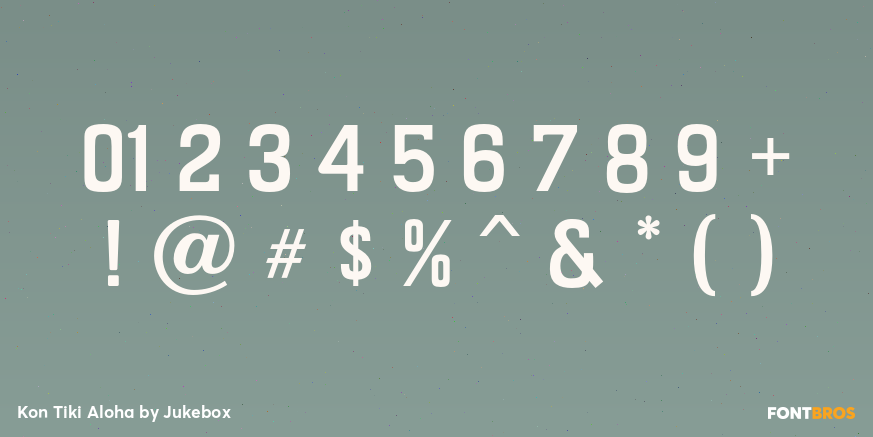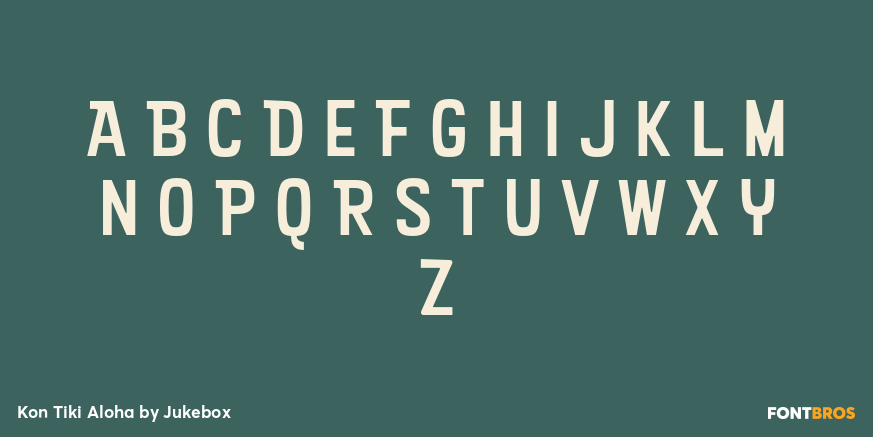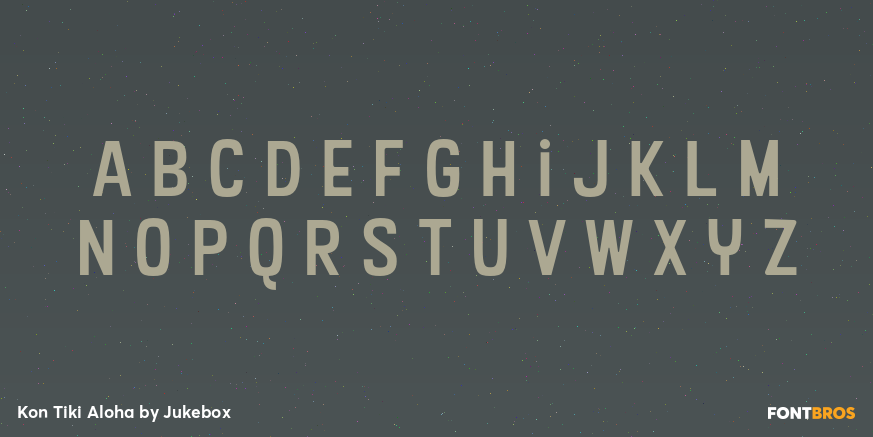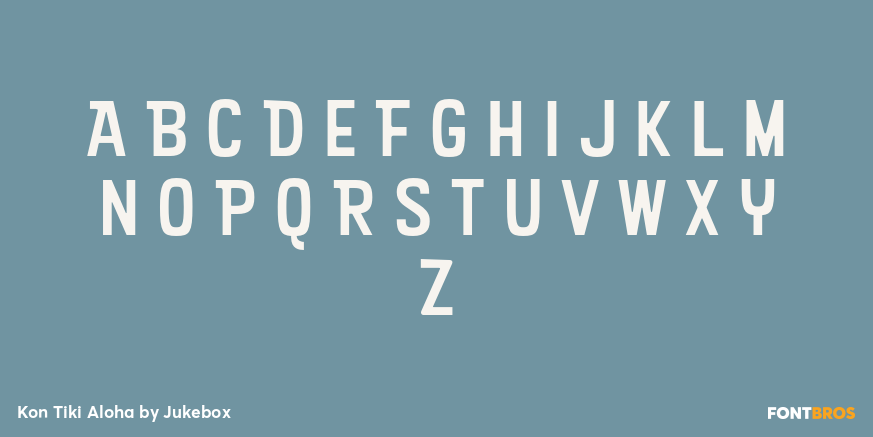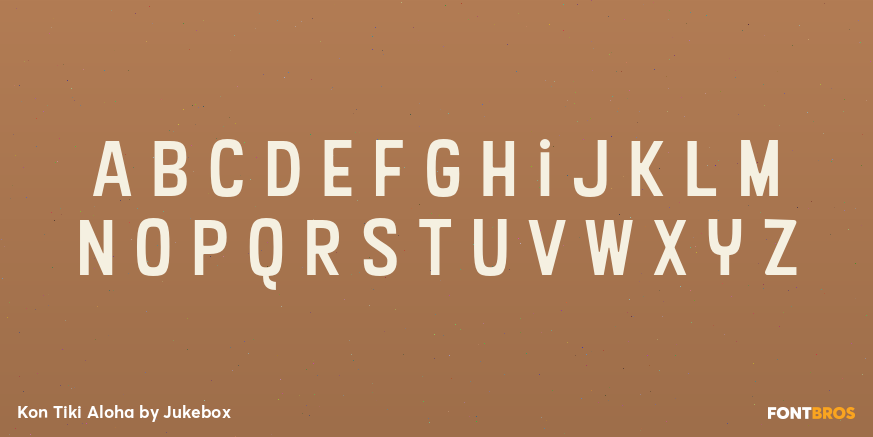
Kon Tiki Aloha
Font Family by Jukebox
Kon Tiki Aloha is one of a series of Kon Tiki fonts created to celebrate the culture and design style of mid 20th Century Hawaiian kitch. This font was actually inspired by the ad poster of a popular Hawaiian themed attraction, and contains 120 alternate interlocking ligatures to give it a Polynesian feel. The ligatures can be found under the Discretionary Ligatures OT feature or added from the glyph palette.